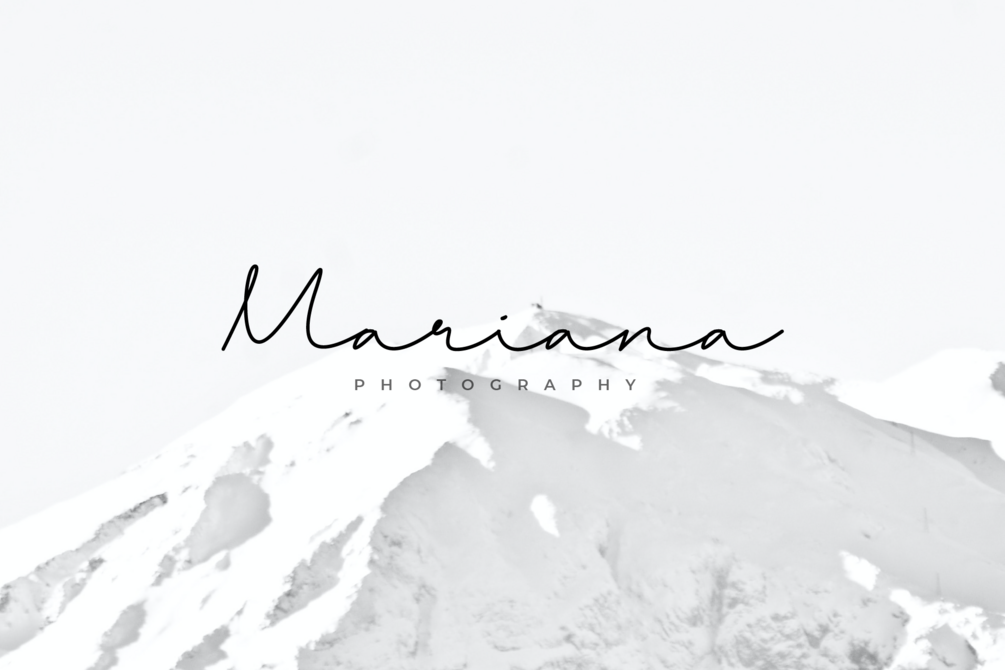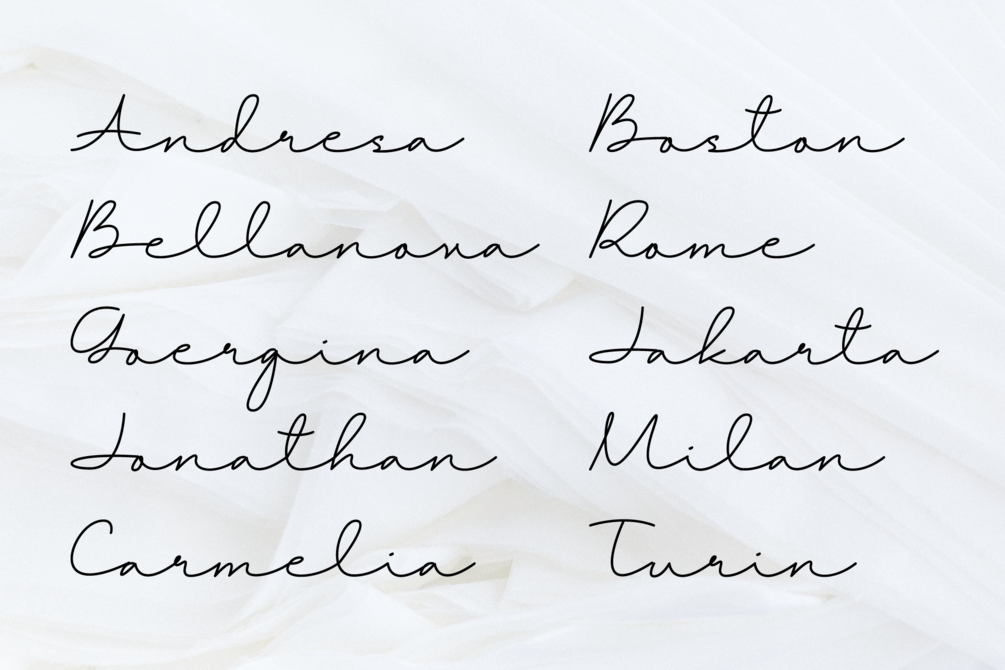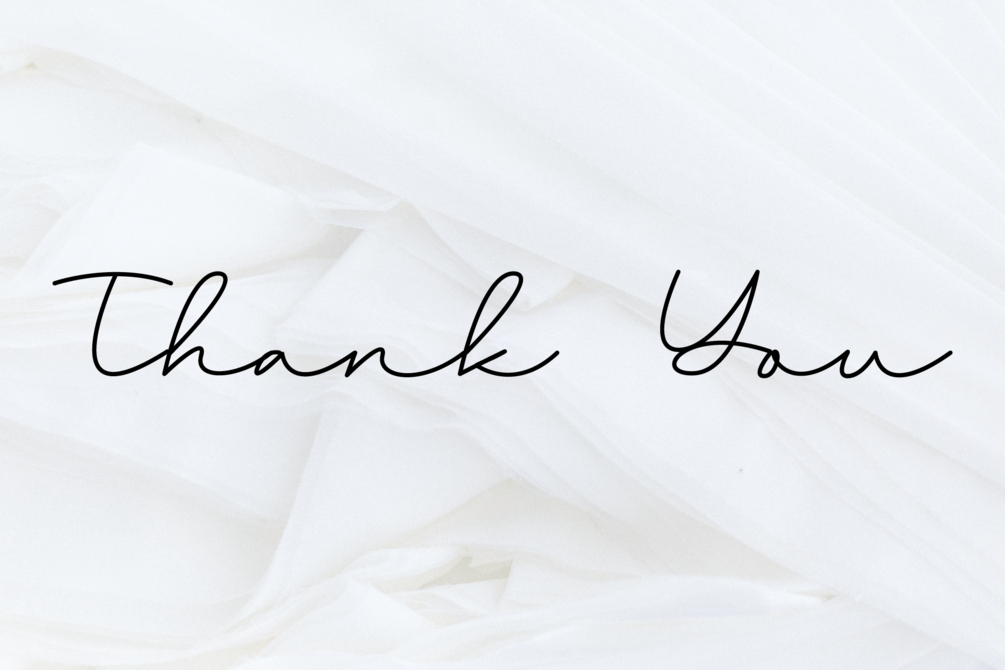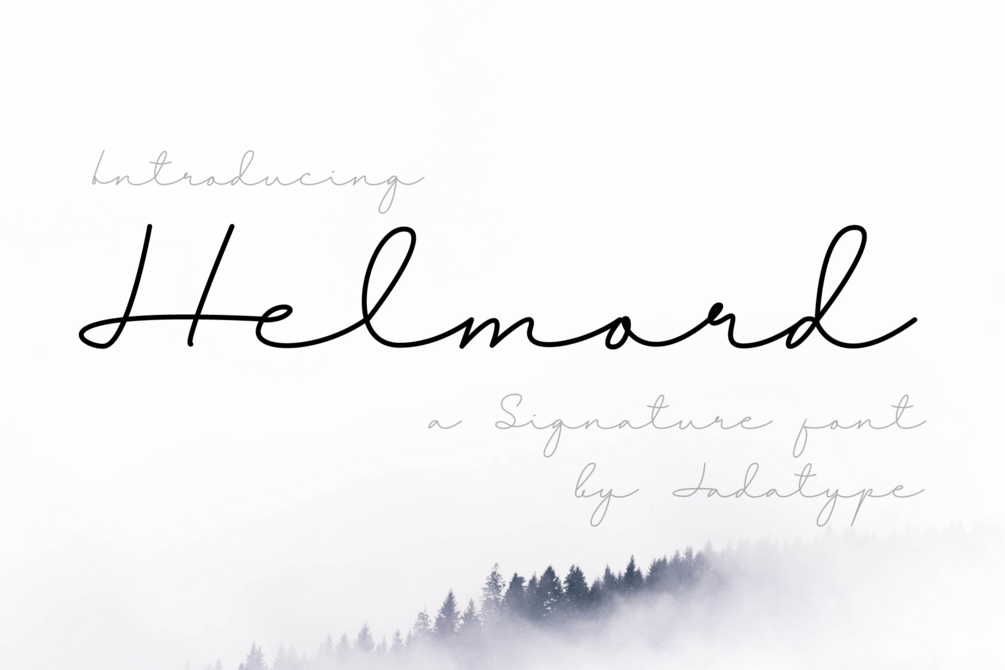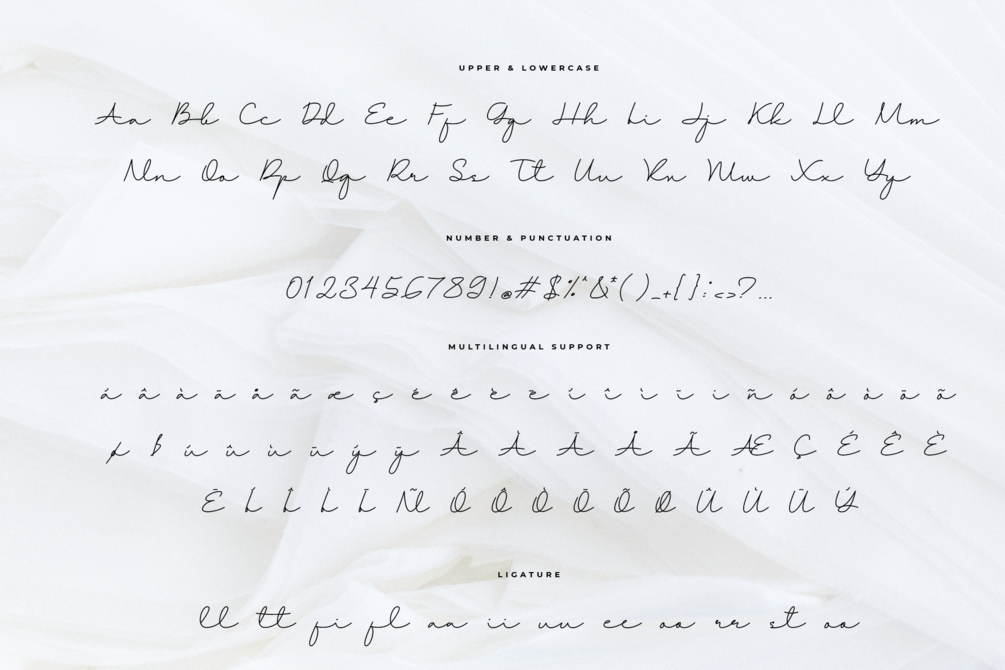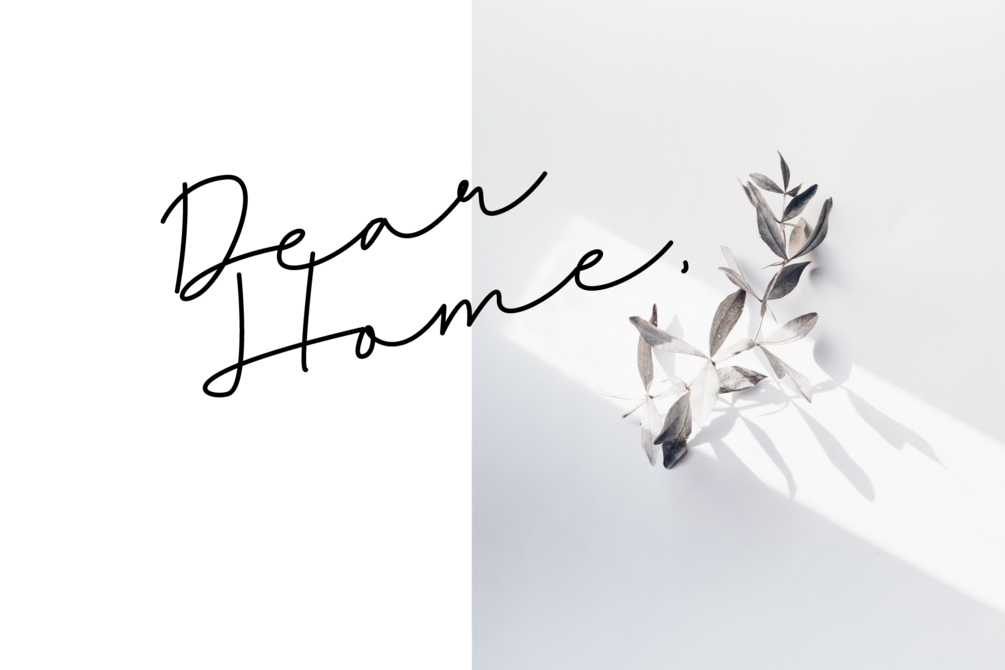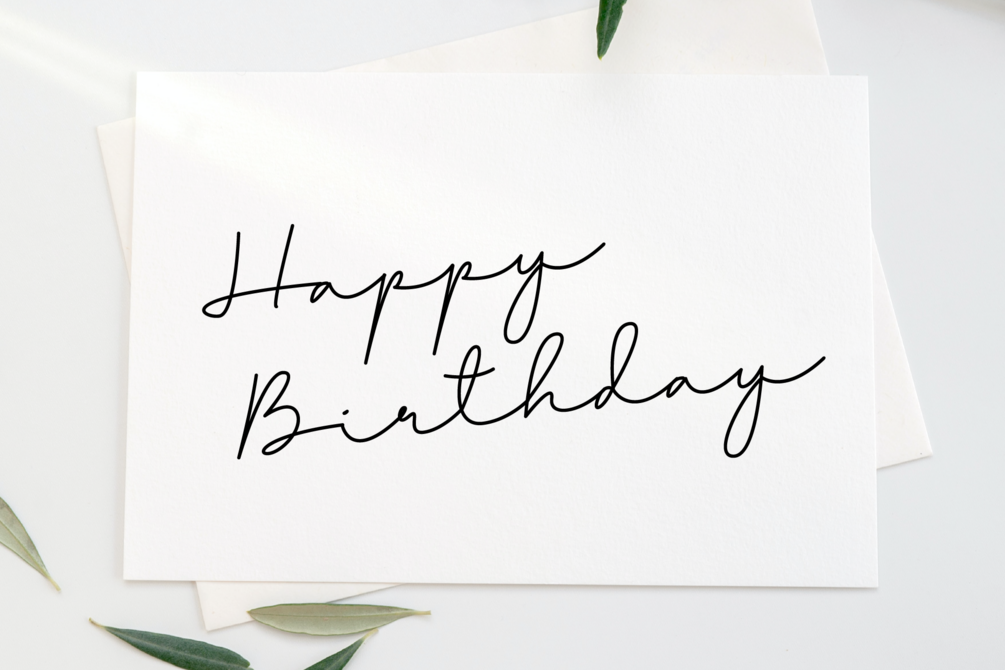
Helmord Font
Helmord is a script font that comes with a monoline style. suitable for product, branding, social media, notes and so on. contains standard English letters, numbers, punctuation, and several accents that support multilingualism.